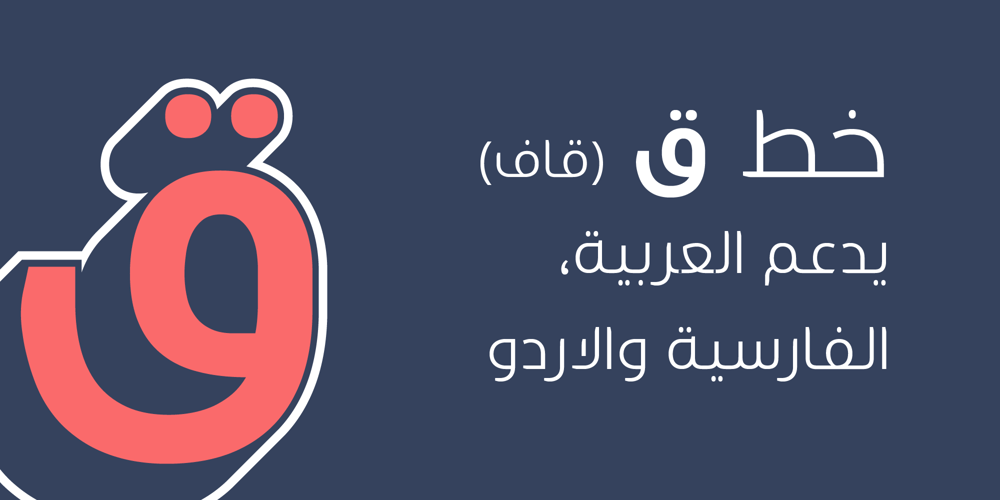
YR Qaf
YR Qaf font
YR Qaf Font Family was designed by Yusuf Refaiy and published by Alrefaiy. YR Qaf contains 10 styles and family package options. YR Qaf is a clean, modern, and highly legible font. Featuring clear, easy-to-read letterforms with a focus on legibility. The font is carefully crafted with balanced proportions and an emphasis on vertical lines, resulting in a harmonious and streamlined appearance.YR Qaf offers a sleek and modern aesthetic, with exceptional legibility and versatility. Its clean lines and balanced proportions make it a perfect choice for a variety of design projects where clarity and readability are essential.YR Qaf is ideal for a wide range of applications, including branding, web design, editorial design, and more. With a comprehensive set of glyphs, including both upper and lowercase letters, numerals, and symbols, this font can adapt to diverse design needs with ease.